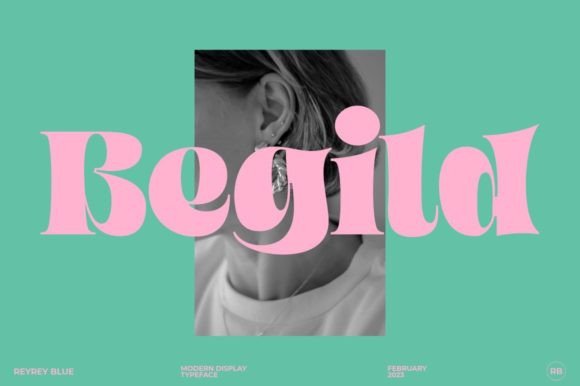
Looking for the best font for a modern CV? Look no further than Begild Font, the latest addition to the display font family. Created by Reyrey Blue, Begild Typeface is a bold, fun, and attractive font that will keep your work looking fresh and modern.
Begild is the perfect font for a wide range of uses, including quotes, body copy, headings, logos, branding, magazines, product packaging, and invitations. Whether you're designing a resume that will help you stand out from the crowd, or creating a bold new branding strategy for your business, Begild Font is the perfect choice.
With its unique and eye-catching design, Begild Font is sure to make your work stand out. Whether you're looking to create a bold statement with your typography, or just want to add a touch of fun and whimsy to your designs, Begild Typeface has you covered.